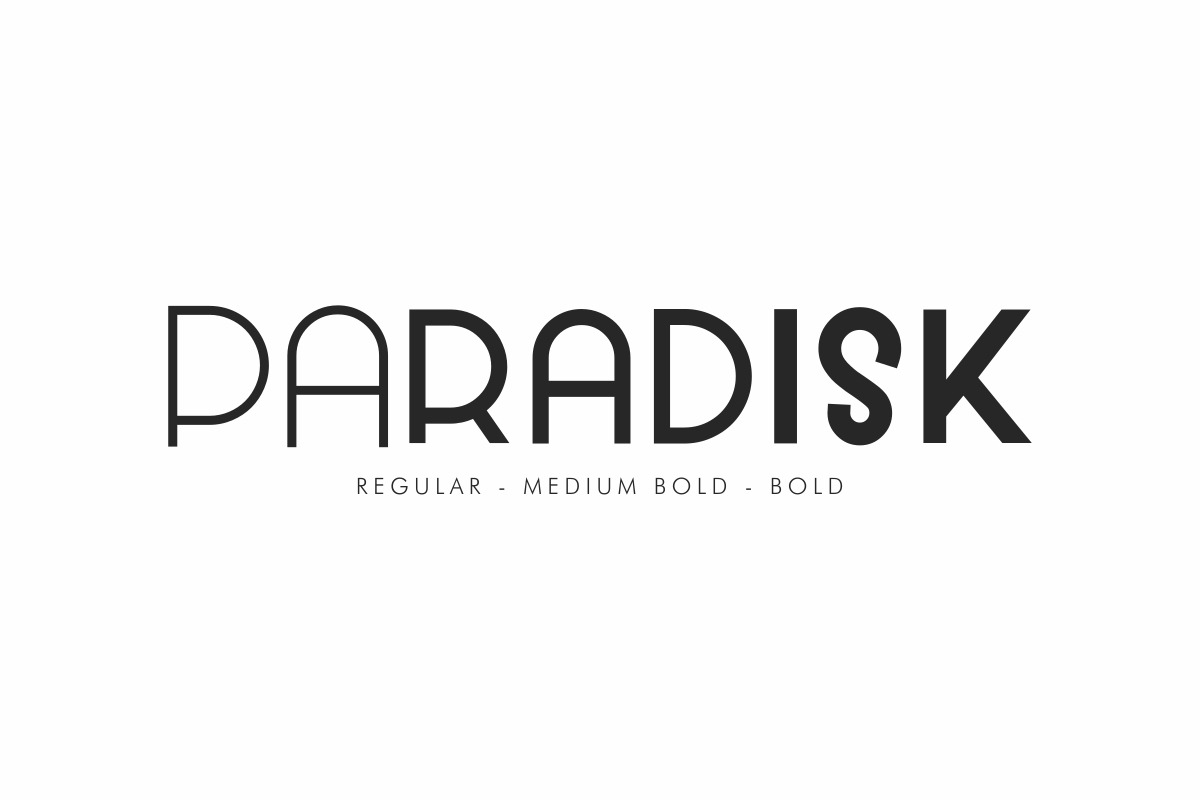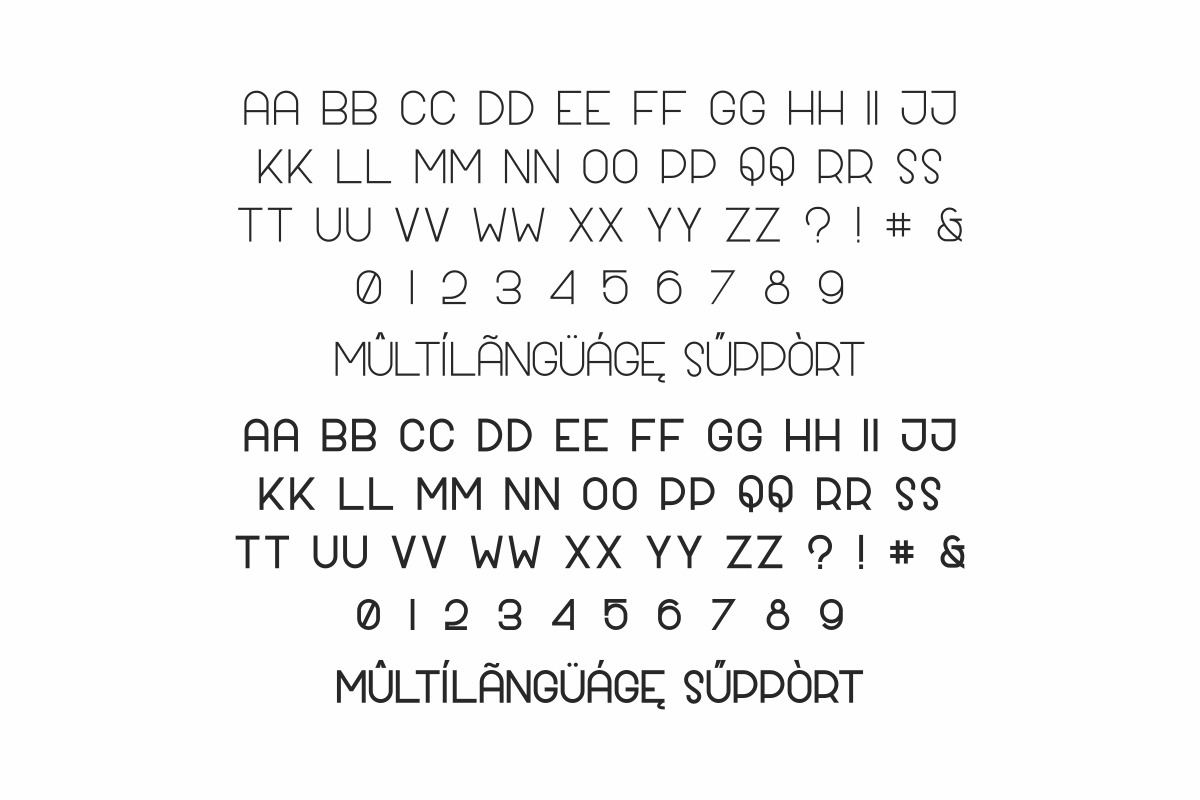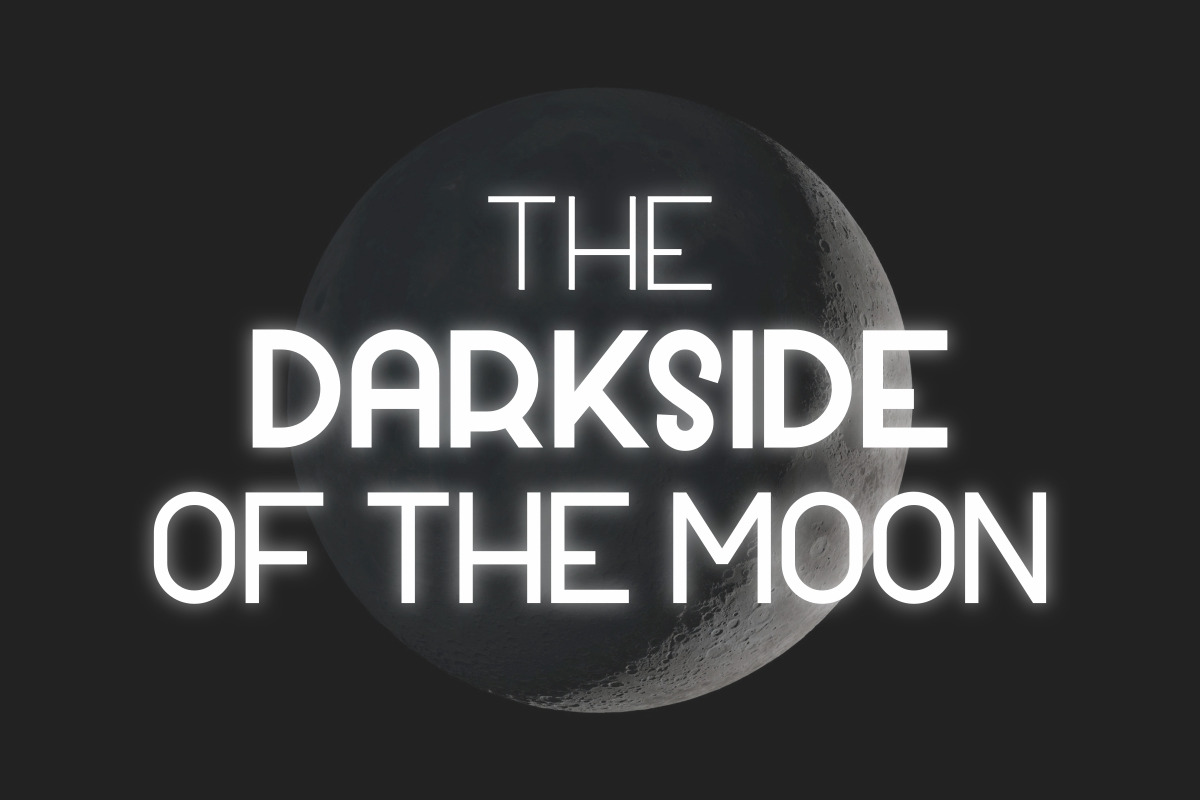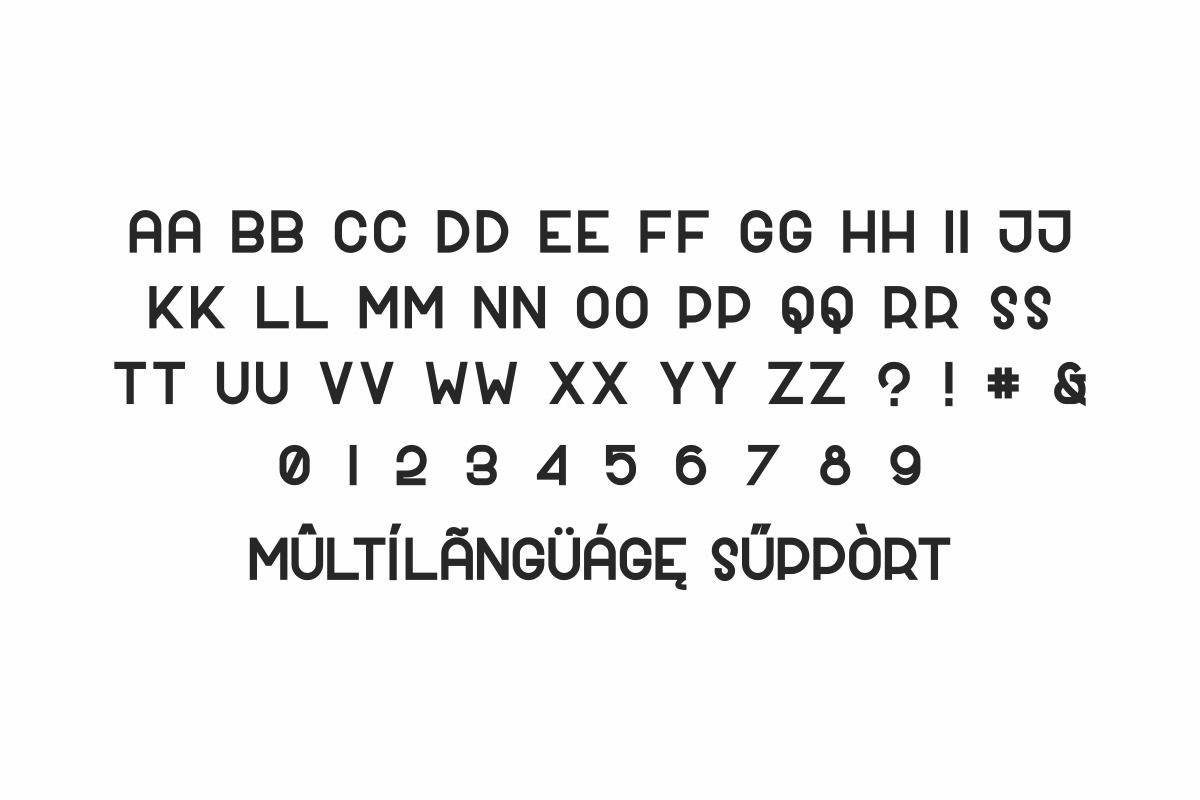
Paradisk Sans Serif Display Font
Paradisk is a sans serif display font. Originally made by NihStudio Font Designer : Fajar Saepul and Sarah. On the package you will get :
Handcrafted here in our Studio , Indonesia. Paradisk will be great for any projects (require extended license) including : branding, logo, stationery, business card, signage, flyer, brochure etc.
The Paradisk has 3 weights : Regular, Medium and Bold